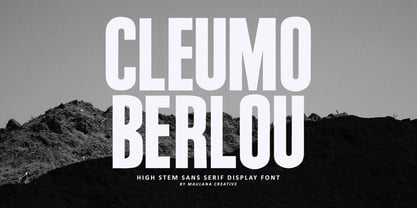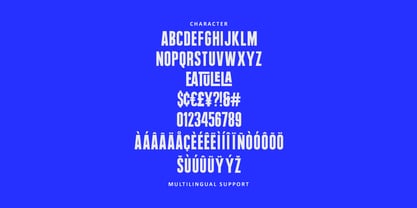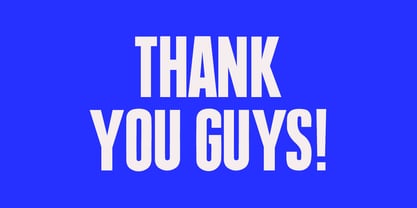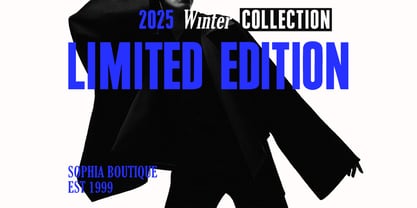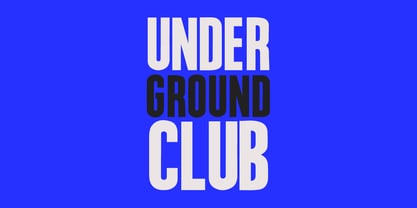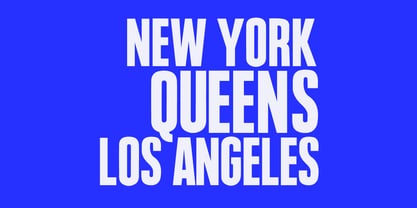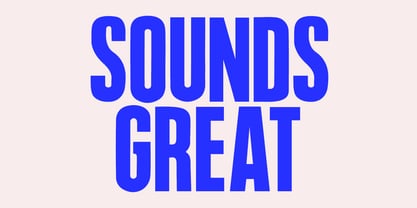
MC Cleumo Berlou
by Maulana Creative
The MC Cleumo Berlou Font Family was designed by Gilang Maulana and published by Maulana Creative. MC Cleumo Berlou contains 1 styles. More about this family
Elevate your designs with the towering elegance of Cleumo Berlou. Cleumo Berlou is a sophisticated High Stem Sans Serif Display Font designed to make a bold, vertical statement. Characterized by its condensed proportions and uniquely elevated waistline (high stems), this typeface brings a fresh, modern perspective to classic industrial typography. Whether you are working on a high end fashion magazine, a minimalist brand identity, Cleumo Berlou provides a perfect balance of authority and style. Its tall, slender anatomy ensures maximum readability while occupying minimal horizontal space, making it ideal for tight layouts and dramatic headlines. Perfect For: - Fashion & Beauty Branding: High-contrast layouts and luxury logos. - Editorial Design: Magazine, headers, and pull quotes. - Poster Art: Movie, event, and protest art. - Social Media: Eye-catching Instagram quotes and YouTube thumbnails. - Modern: Sleek, minimalist product labels. Make a tall statement. Add Cleumo Berlou to your design toolkit today!
Designers: Gilang Maulana
Foundry: Maulana Creative